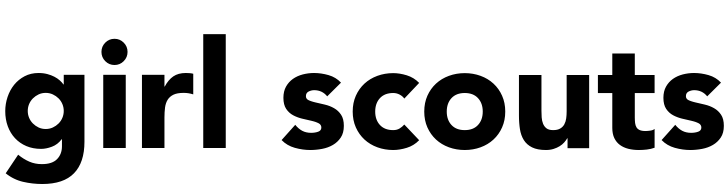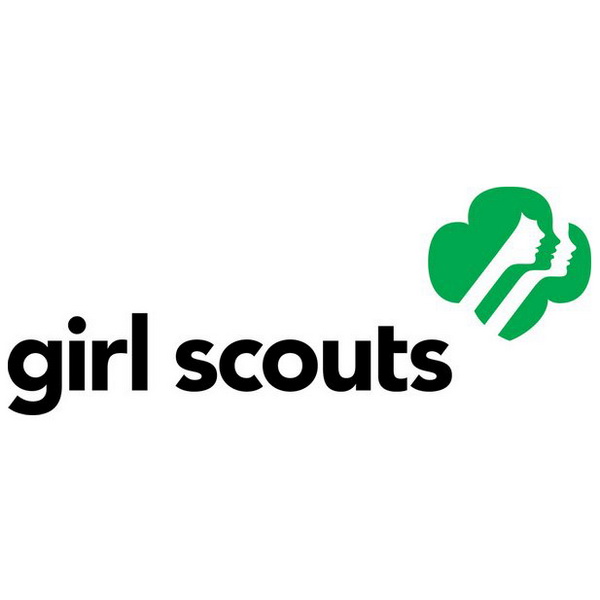
Girl Scouts Font
Fonts in UseGirl Scouts is an organization for girls in the United States that aims to empower young women through activities that promote leadership, self-confidence, and community service. Founded in 1912, it currently has millions of members across the country.
In 1978, Saul Bass designed the Girl Scouts logo, which depicts the profile faces of three women arranged diagonally and the logotype set in Avenir Black with a customized "t". Adrian Frutiger created Avenir Black, which is a commercial font that can be purchased here.